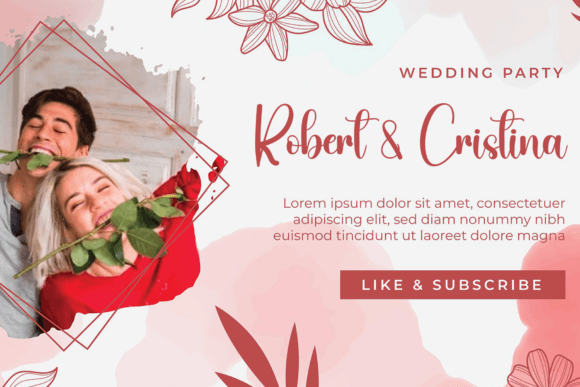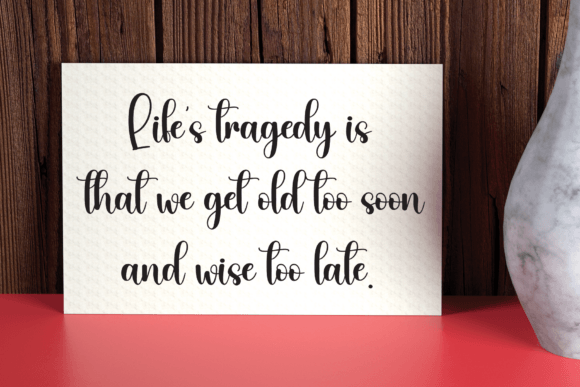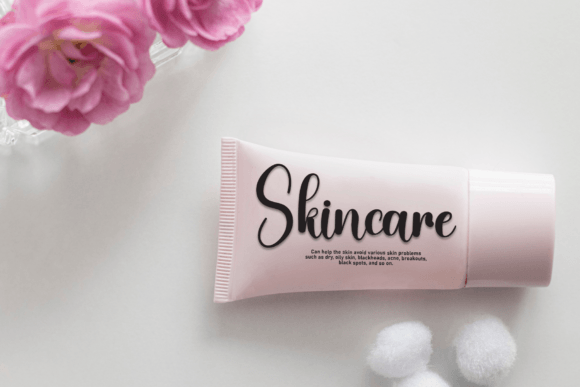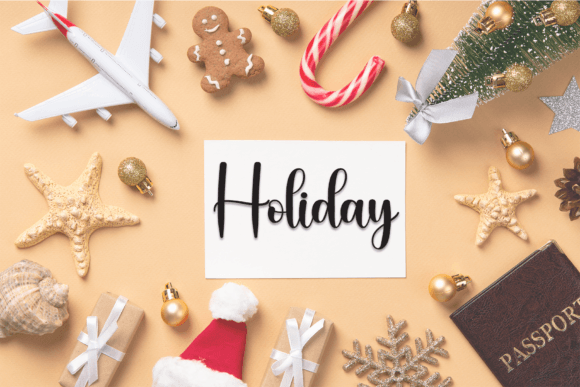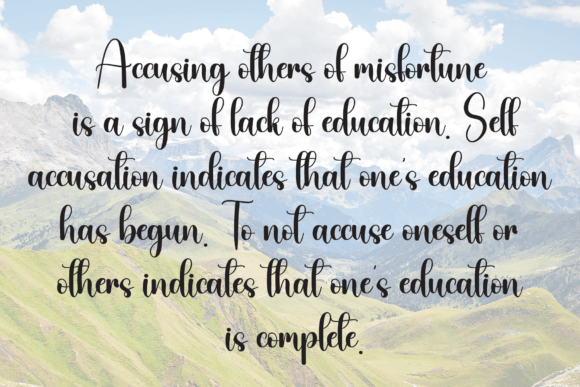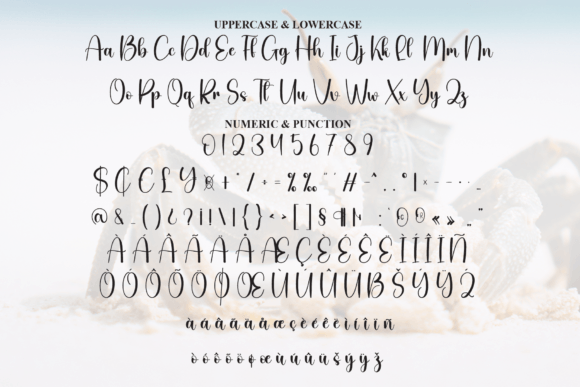
Have you ever stared at a blank page, trying to come up with the perfect idea, but nothing seems to stick? That’s when the magic happens – you start doodling, and suddenly a spark of creativity ignites. You’ve got a rough sketch, and you’re excited to bring it to life. This is where the Babycrab Font comes in – a fun, bold handwritten font that’s perfect for adding a personal touch to your next project.
Babycrab Font is more than just a font – it’s a statement piece that adds a playful, creative vibe to any design. Its thick strokes and casual, hand-drawn look make it a valuable tool for designers looking to add some personality to their work. Whether you’re working on a branding project, a social media campaign, or a fun infographic, the Babycrab Font is sure to bring a smile to your face and a touch of whimsy to your design.
Babycrab Font Key Features
- Font Family: Babycrab
- Unique Characteristics: Distinctive, hand-drawn style with a mix of playful and elegant elements, featuring curved lines and whimsical flourishes
Babycrab Font Review
Overall, I was excited to dive into the world of Babycrab Font. As a designer, I appreciate unique and bold typography, and this font delivers. ✨
- Unconventional yet elegant design: Babycrab Font offers a fresh take on traditional typography, making it perfect for modern projects.
- Strong legibility: The font is remarkably clear, even at smaller sizes, making it suitable for various applications.
- Extensive character set: The font includes a wide range of characters, including Latin, Cyrillic, and Greek scripts.
However, as with any font, there are some limitations. ⚠️
- May not be suitable for traditional or conservative projects: The font’s unconventional design might clash with more classic or formal styles.
- Limited availability: As a relatively new font, Babycrab might not be as widely supported as more established fonts.
Overall, I’m impressed with Babycrab Font’s unique design and strong legibility. While it may not be perfect for every project, it’s an excellent choice for modern, bold typography. With time and further development, I’m confident that Babycrab will become a staple in the design community.
Getting the Most Out of Babycrab Font
Experiment with different font sizes, styles, and colors to achieve the desired effect. Use Babycrab Font for headings, titles, or emphasis to add visual interest to your designs. Consider pairing it with other fonts to create a unique and eye-catching combination.
Babycrab Font is suitable for various design applications, including logos, branding materials, social media graphics, and digital marketing materials. It’s also a great choice for creating playful and whimsical designs, such as children’s products or entertainment-related materials.